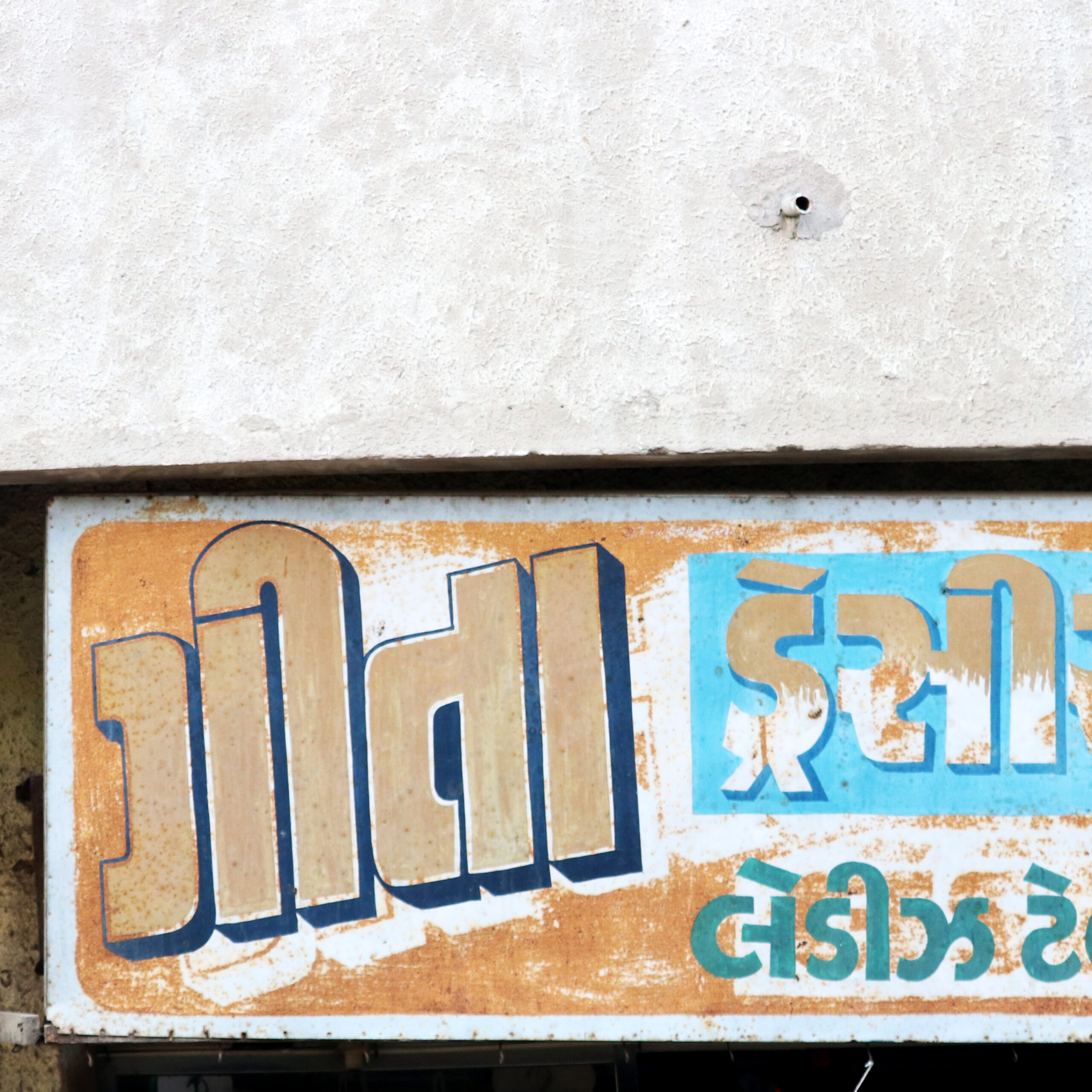
Geeta Dresses Ladies Tailor
Ahmedabad
Close Shade
Internal Outline
Outline
Thin counters
Handpainted
Outline
Close Shade
Extrude
Close Shade
Extrude
Close Shade
Extrude
Outline
Close Shade
Extrude
Close Shade
Extrude
Outline